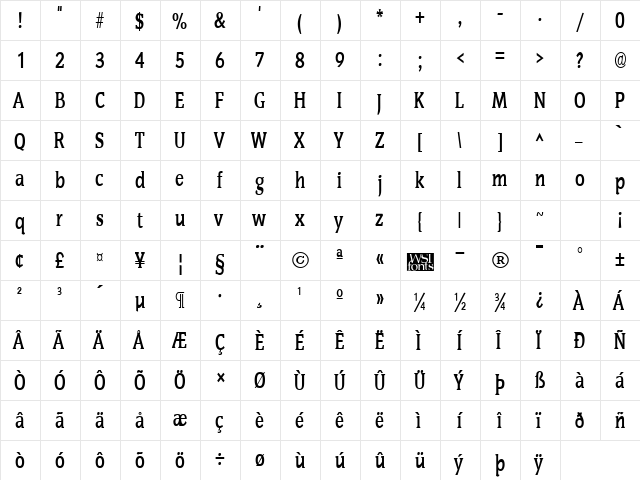
SenateCondensed Bold Font Preview
SenateCondensed Bold
Design Context for SenateCondensed Typeface
SenateCondensed offers clean, dependable letterforms without strong stylistic allegiance, making it a practical choice for designers who need flexibility. The heavy weight commands attention and anchors typographic hierarchies. The condensed width makes it efficient for tight spaces without sacrificing legibility.